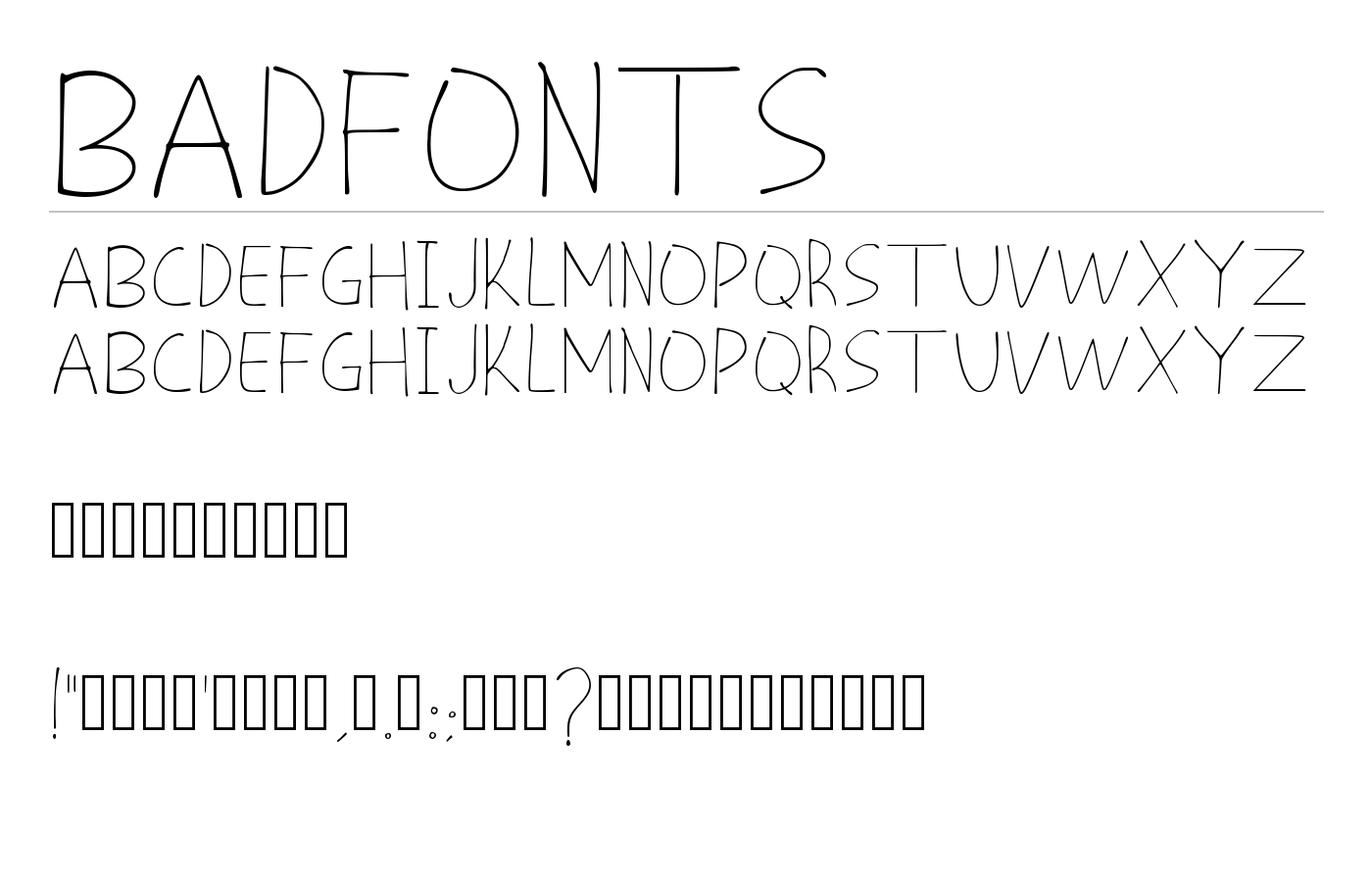
Badfonts Font is a quirky, hand-drawn sans serif with tall, thin letterforms that give it a playful yet slightly unrefined personality. Its irregular strokes and casual style make it well-suited for informal designs, such as children's books, comics, or fun branding projects that want to appear approachable and creative. This font works best in headlines or display uses where a touch of whimsy and individuality is desired.
Badfonts Font